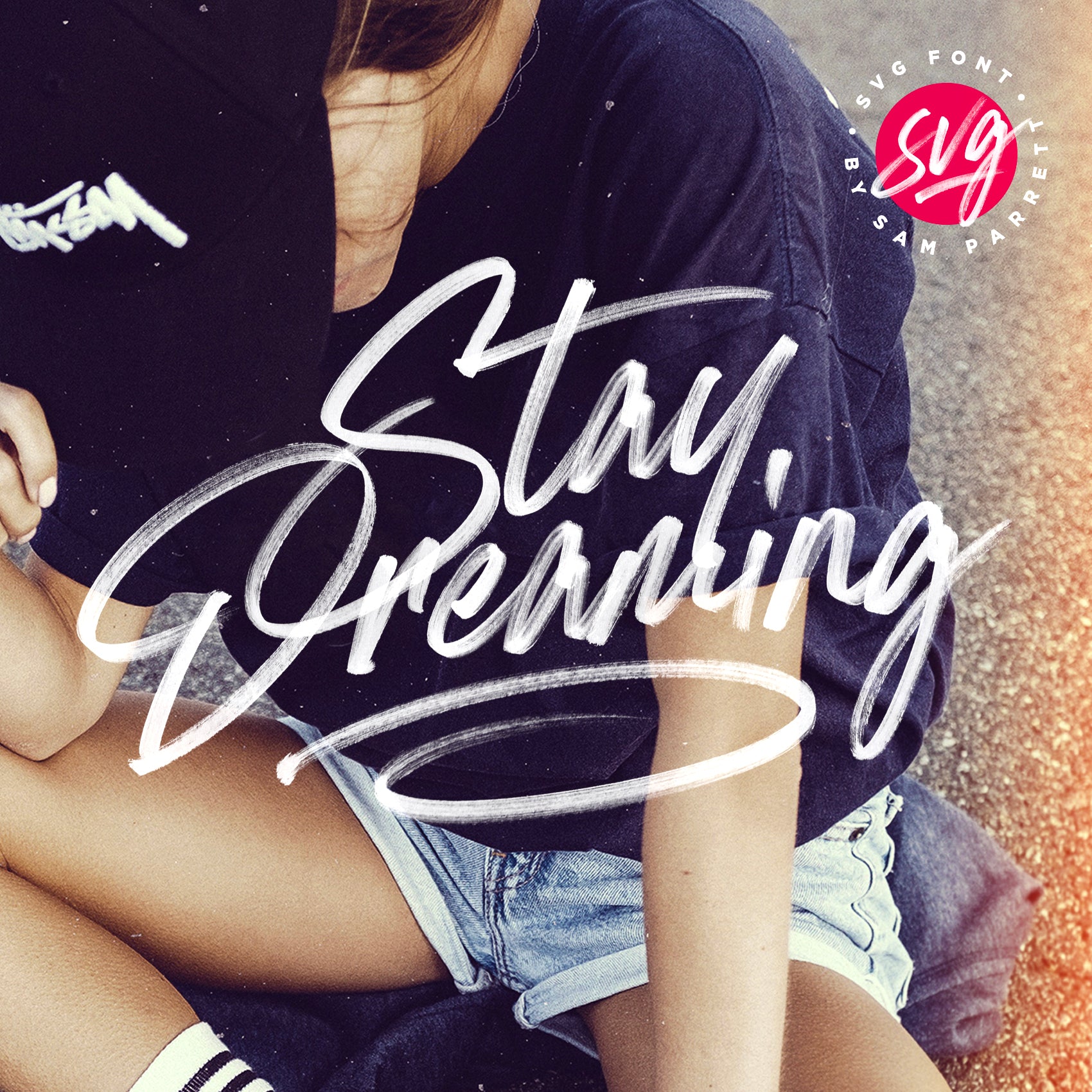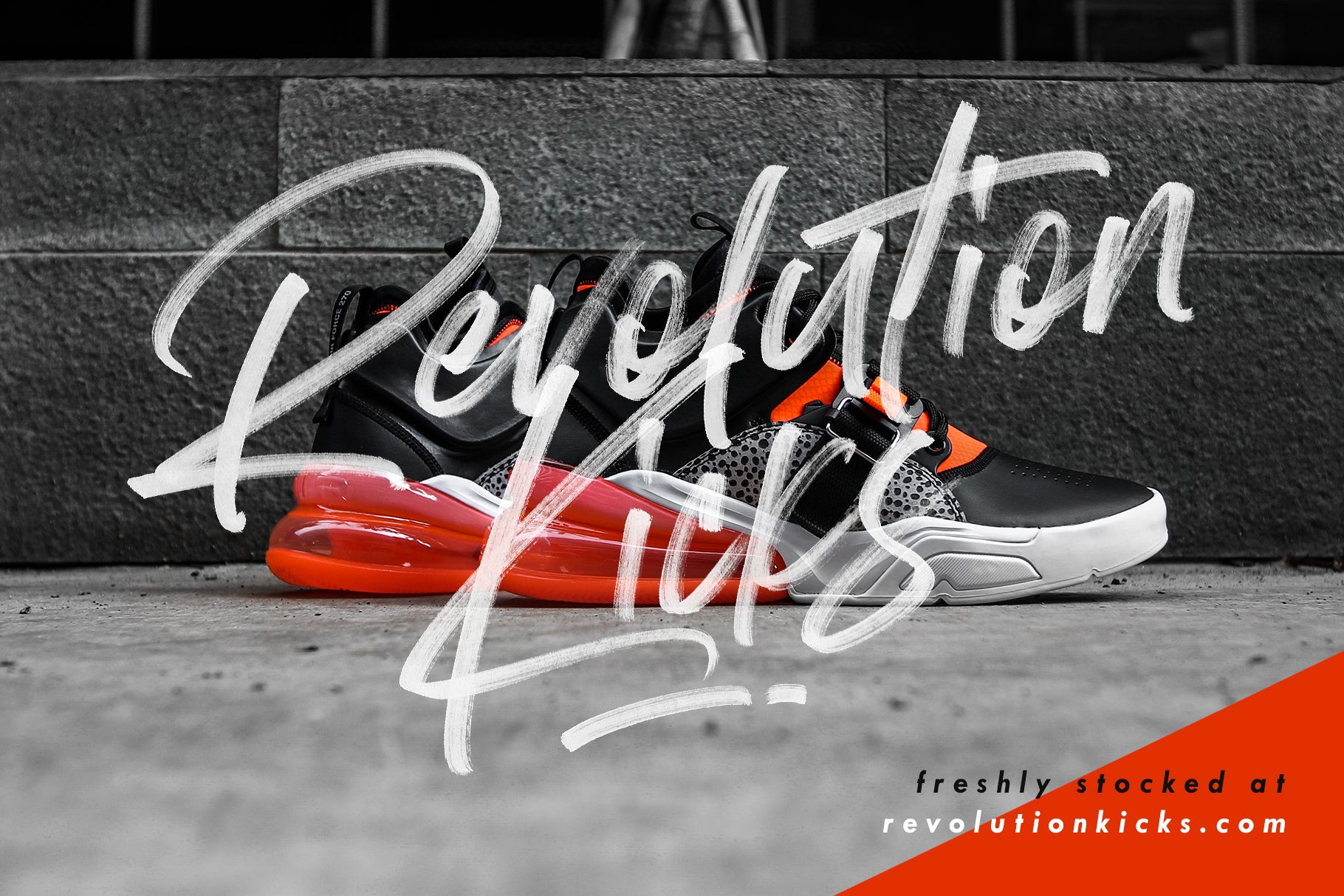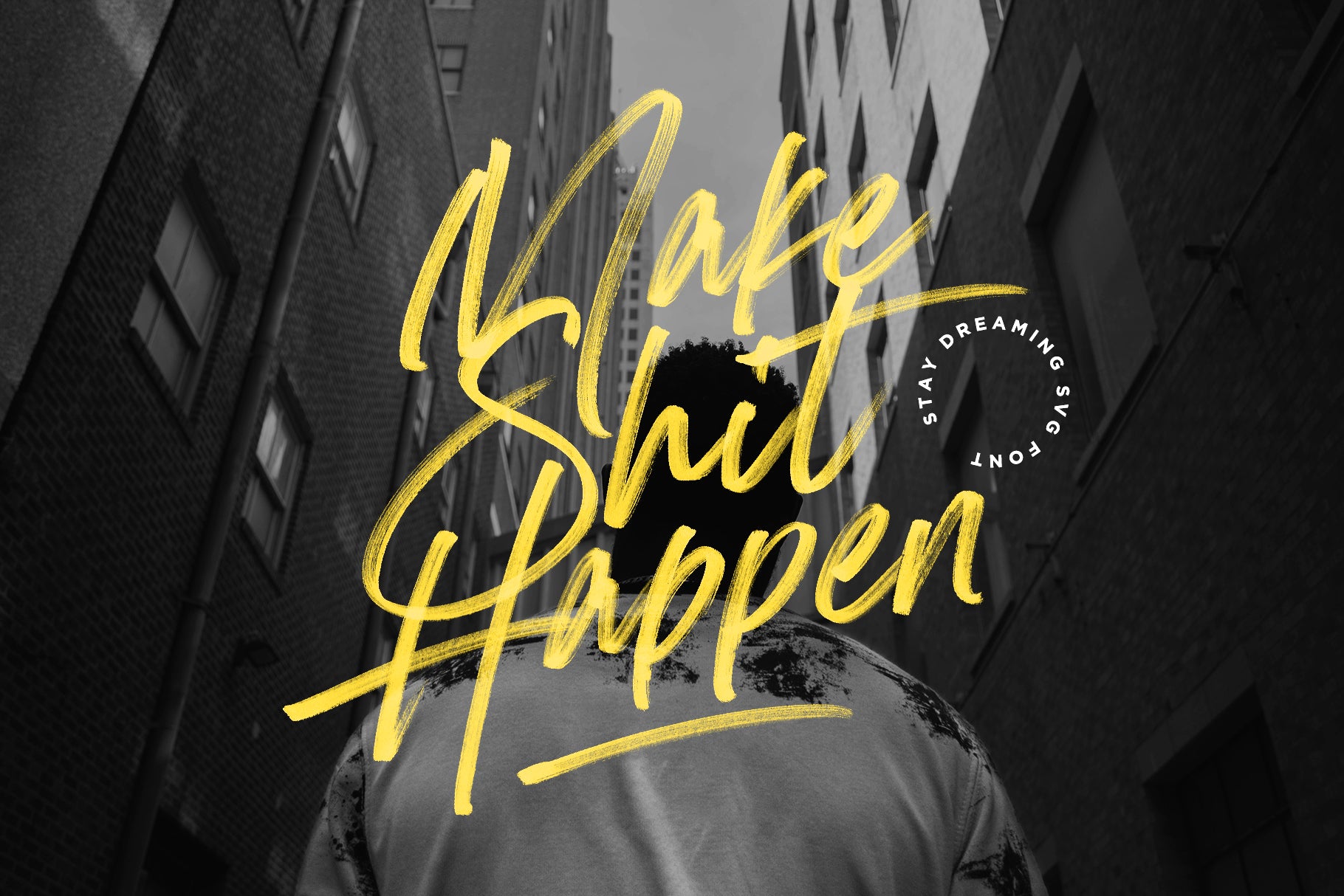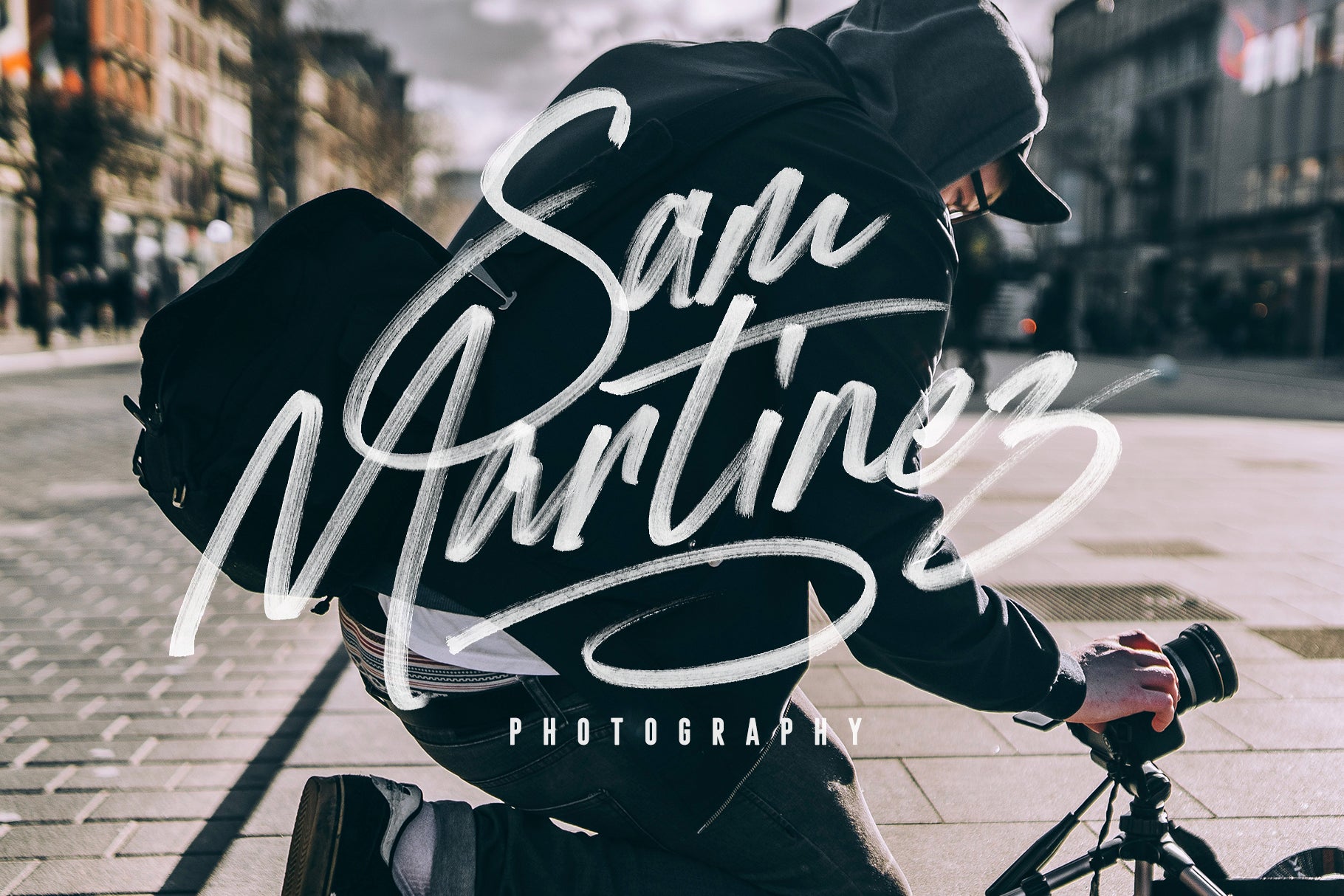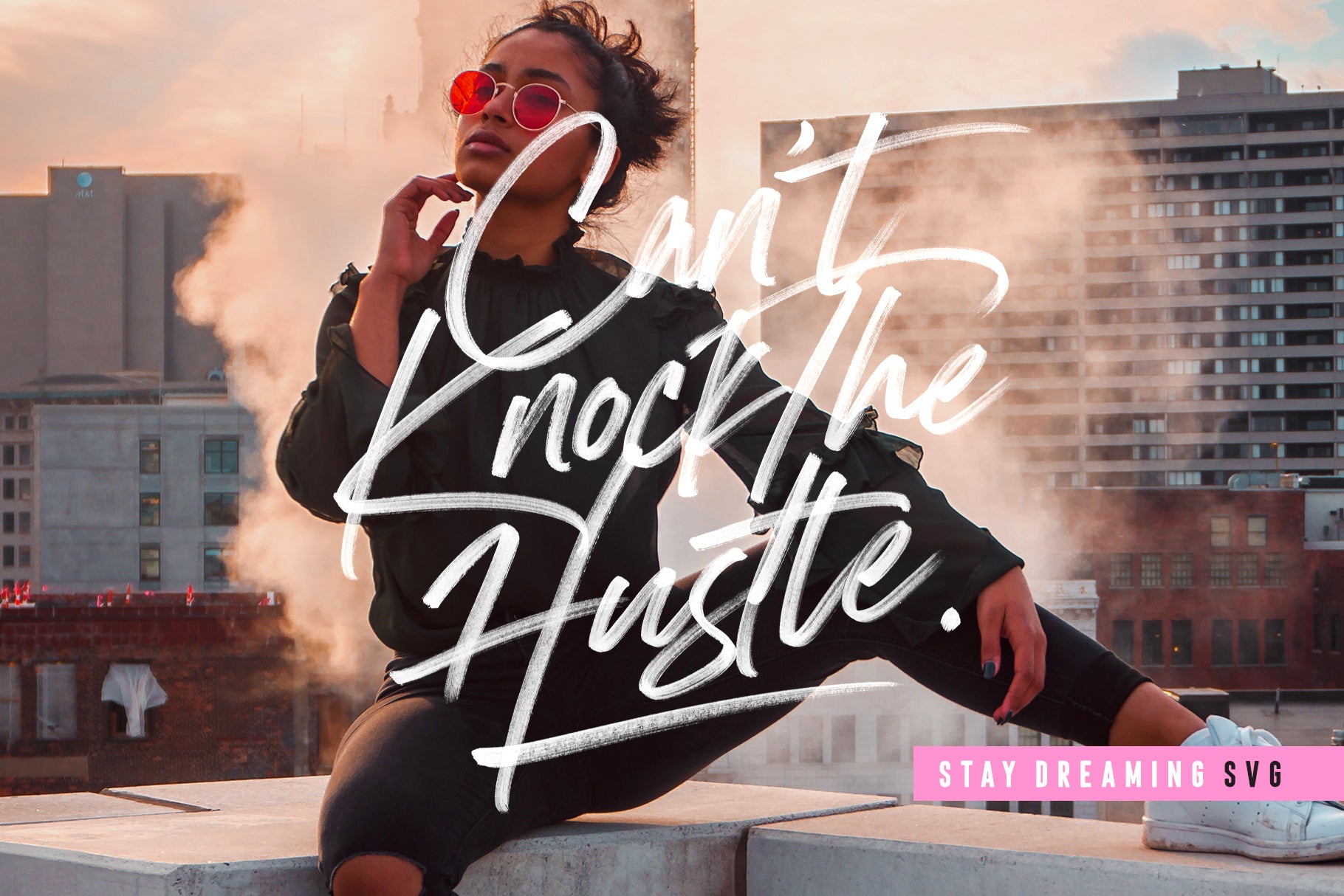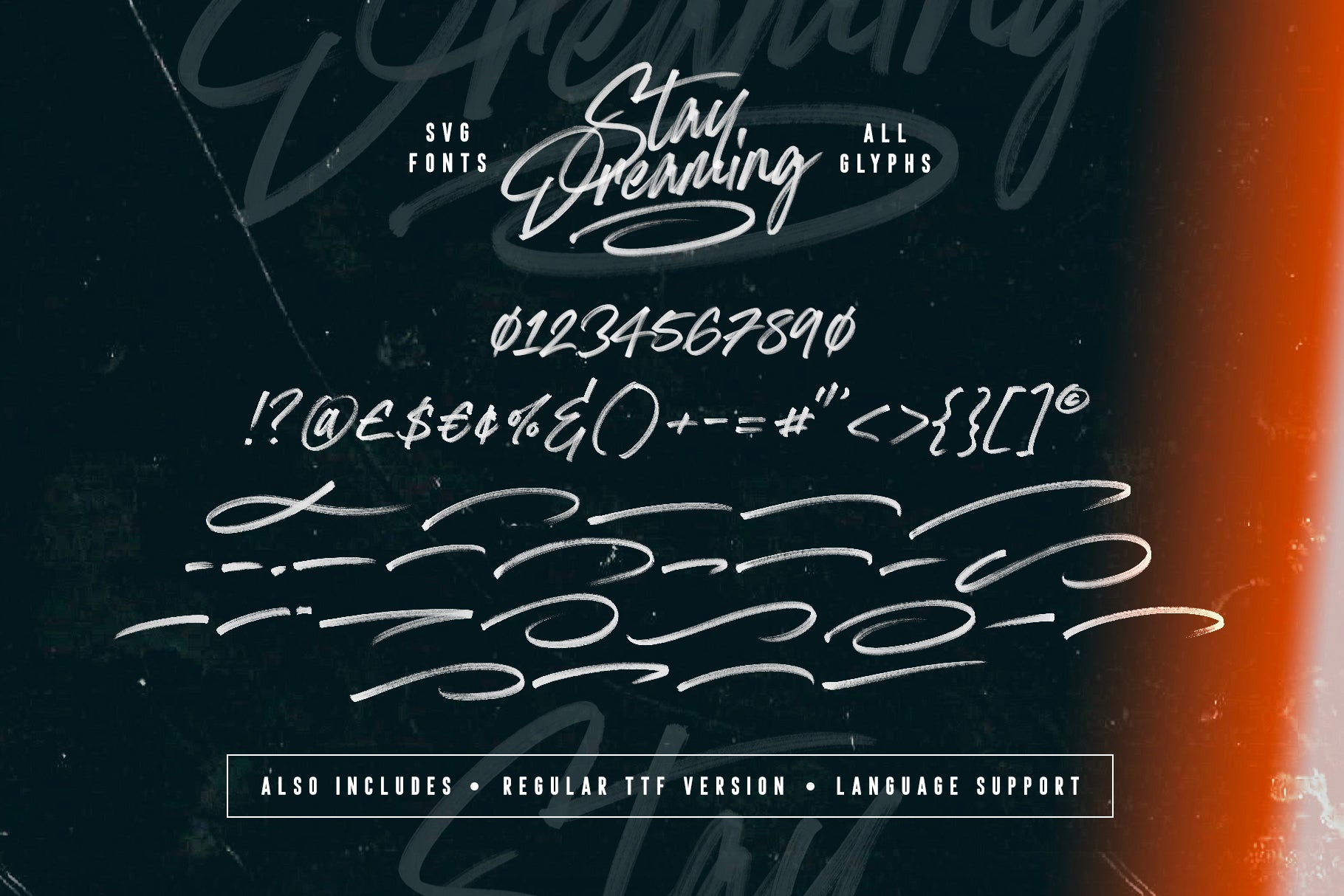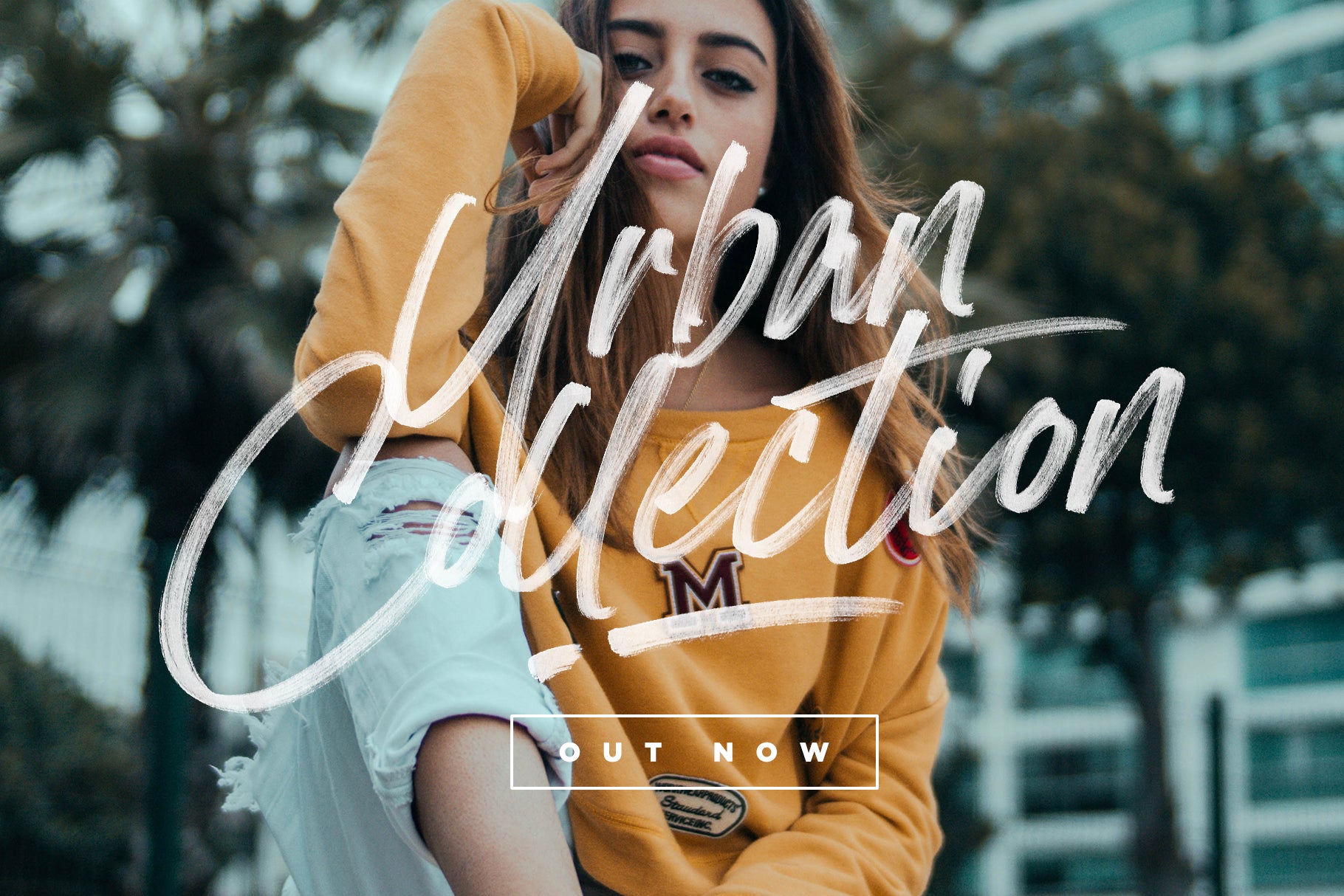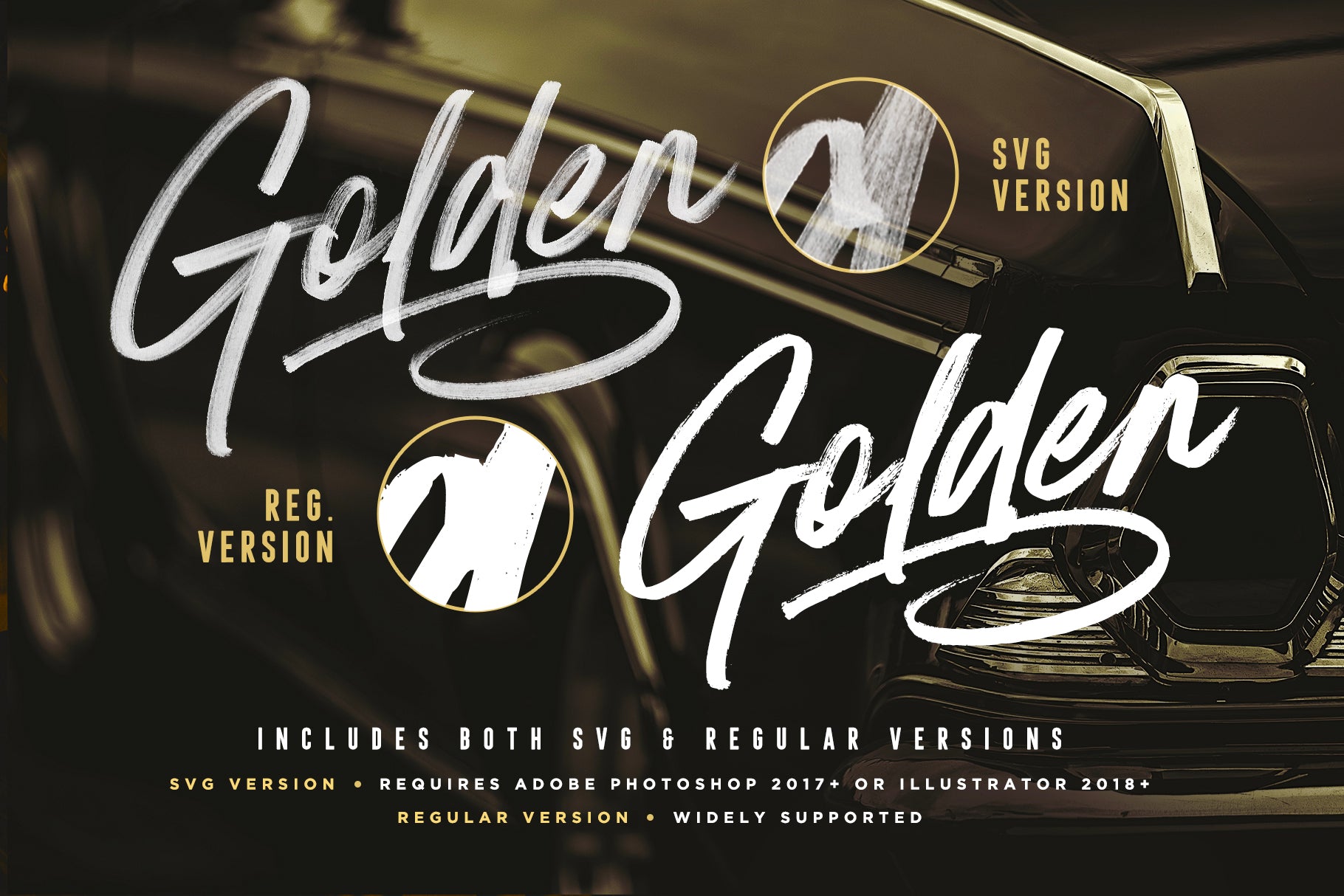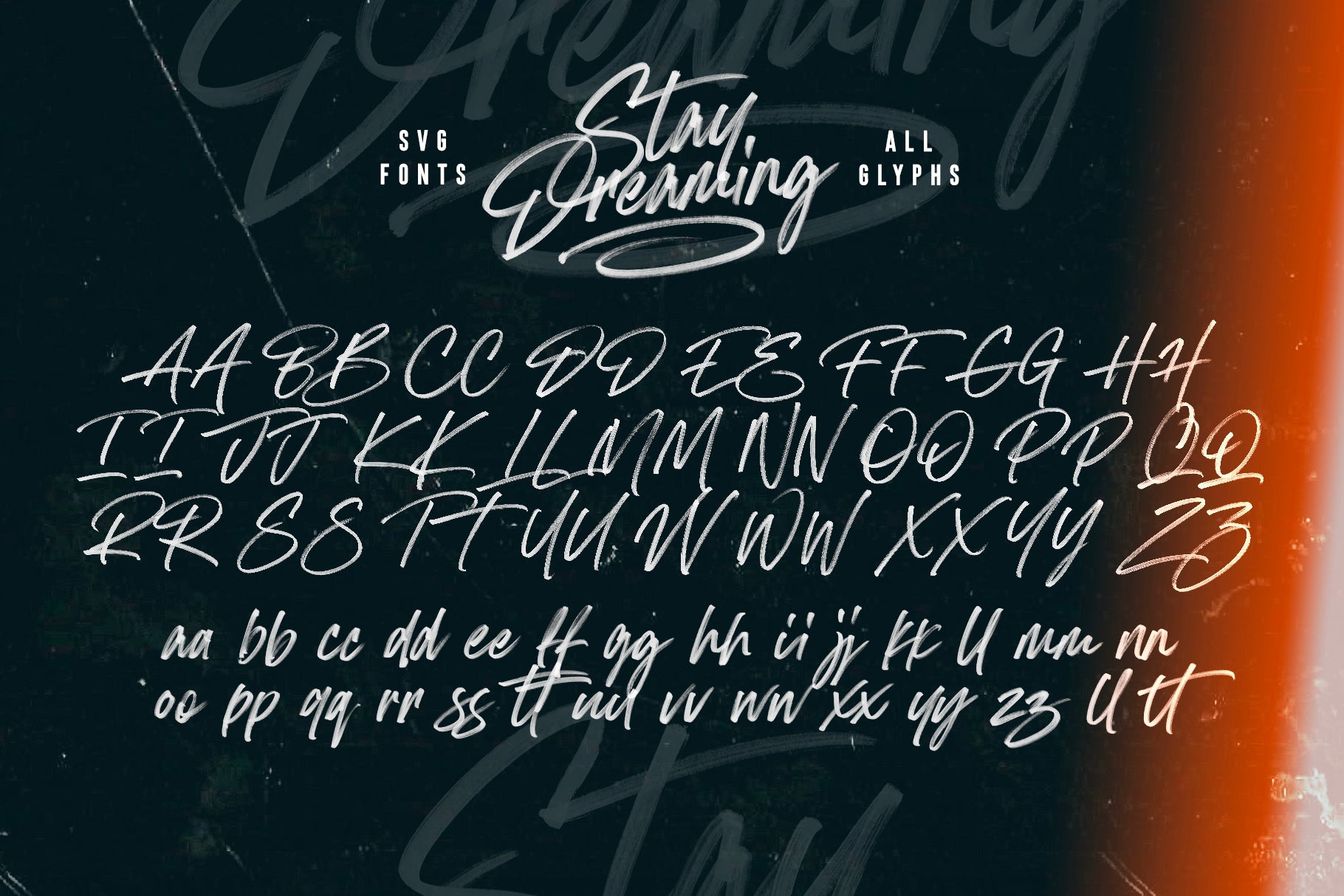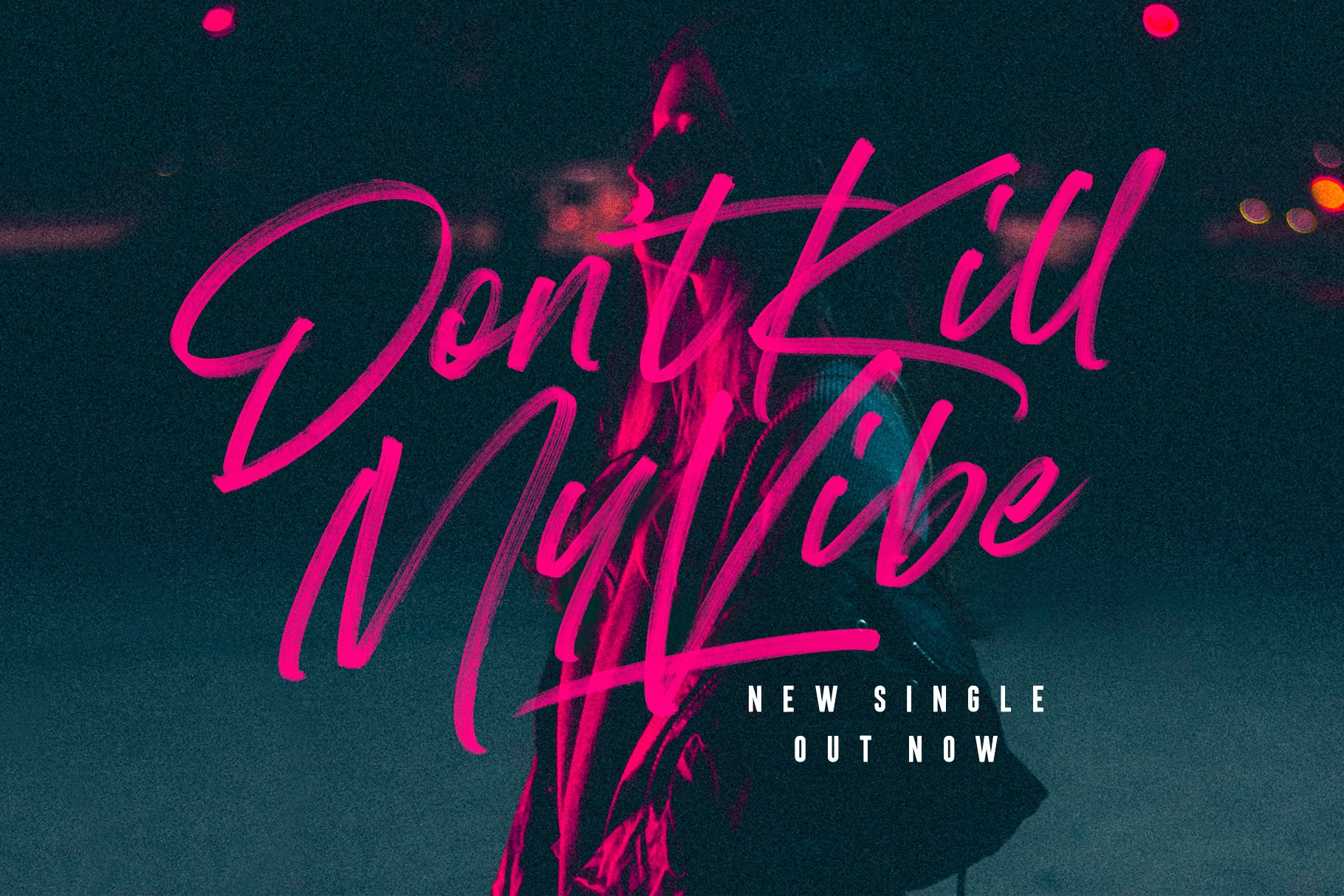
Stay Dreaming SVG Font
The Stay Dreaming SVG Font is an expressive script font available in both traditional vector format and high-definition SVG format, requiring Photoshop CC 2017 or Illustrator CC 2018 (or newer) for full functionality. It includes an alternate version for varied lettering, supports multiple languages in the Regular version, and features built-in textures for a hand-lettered appearance.